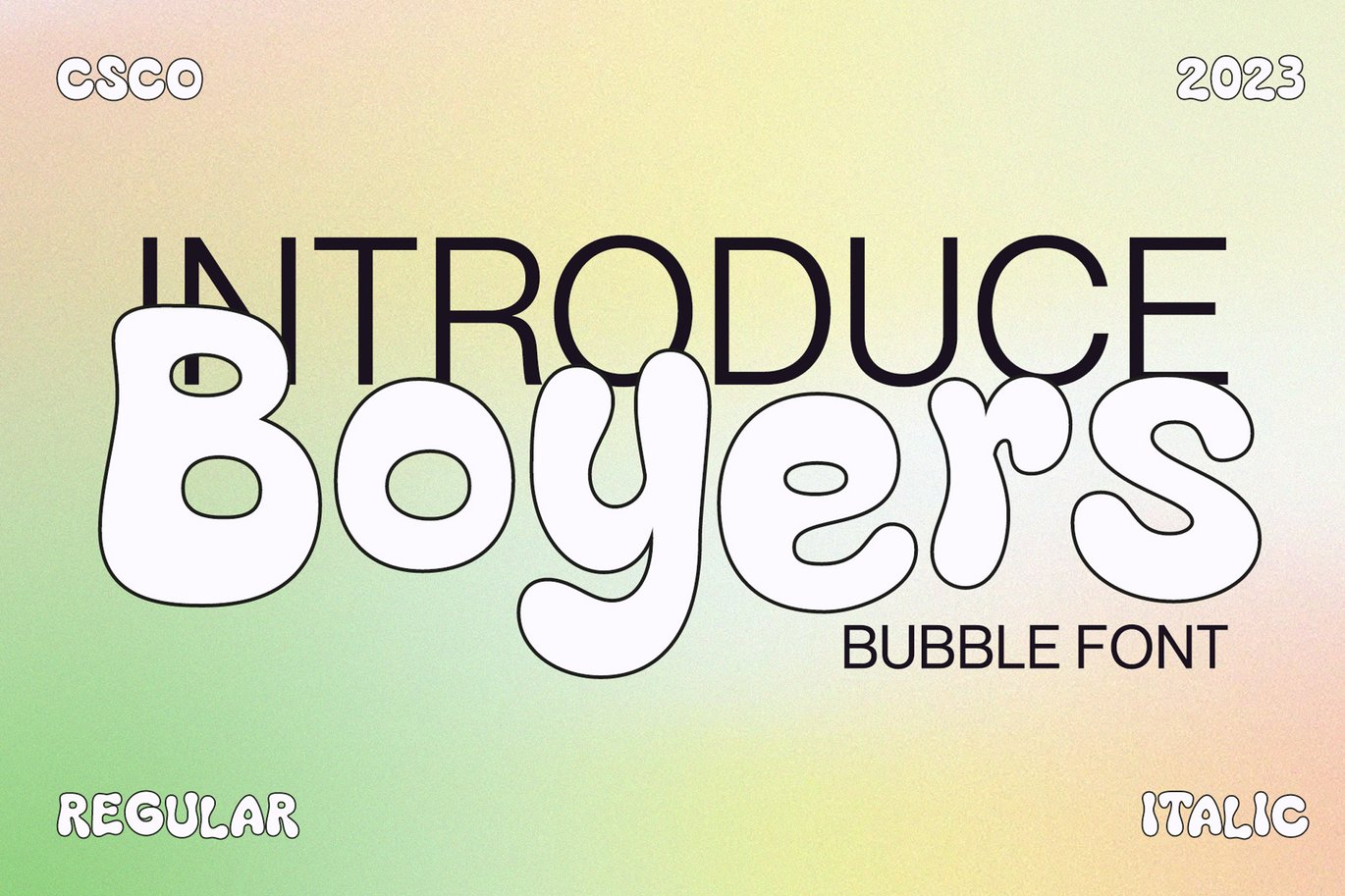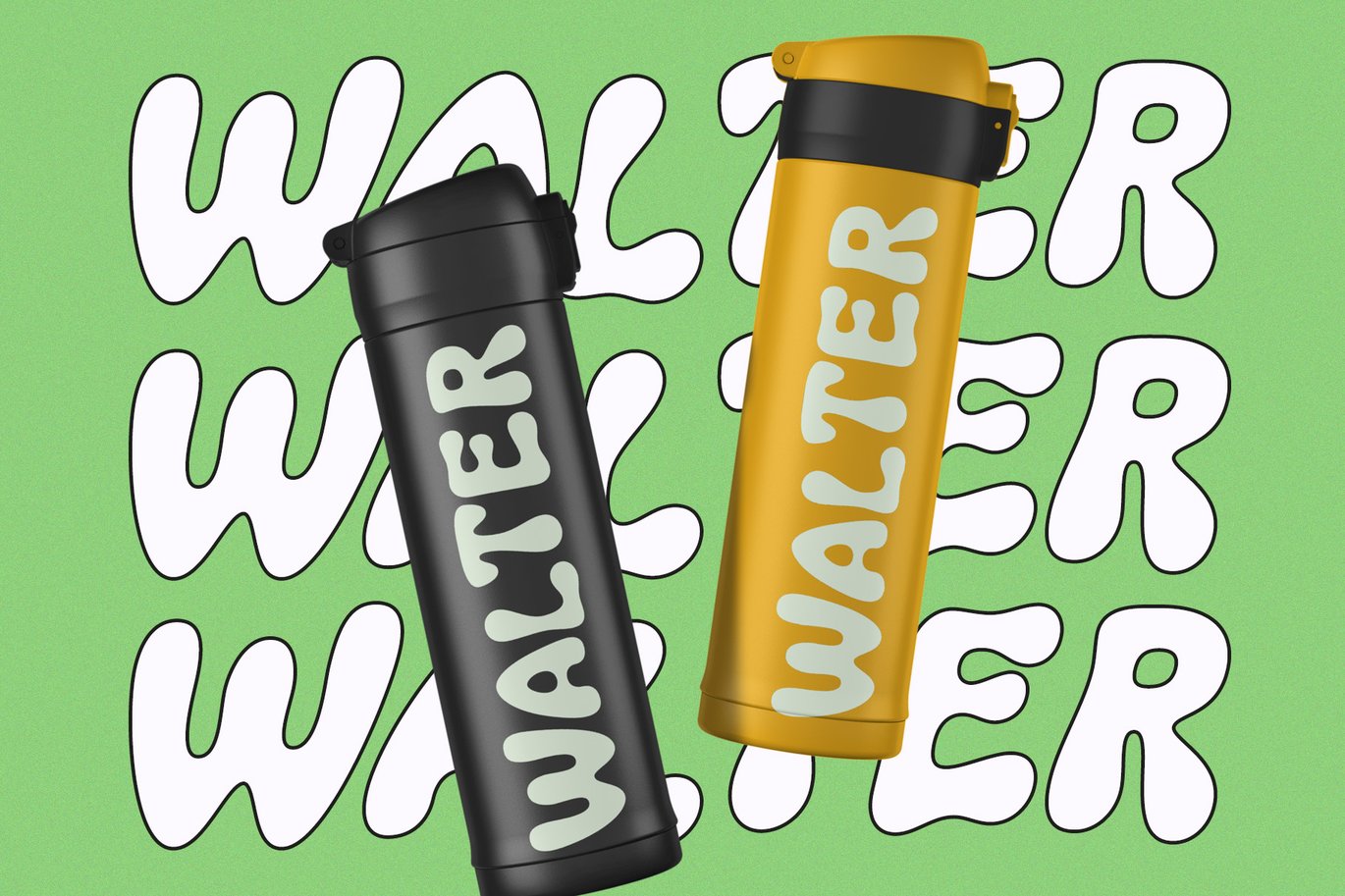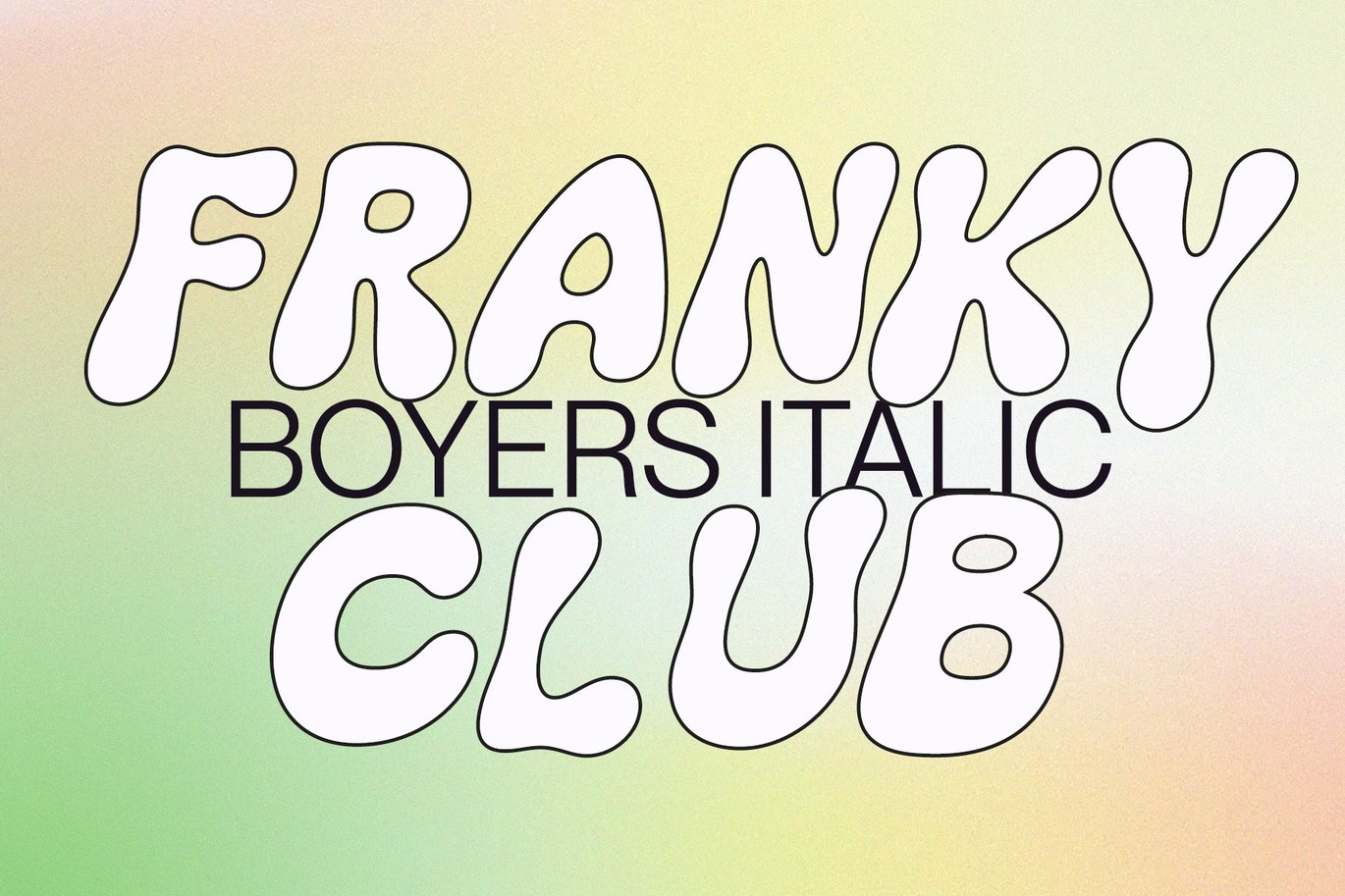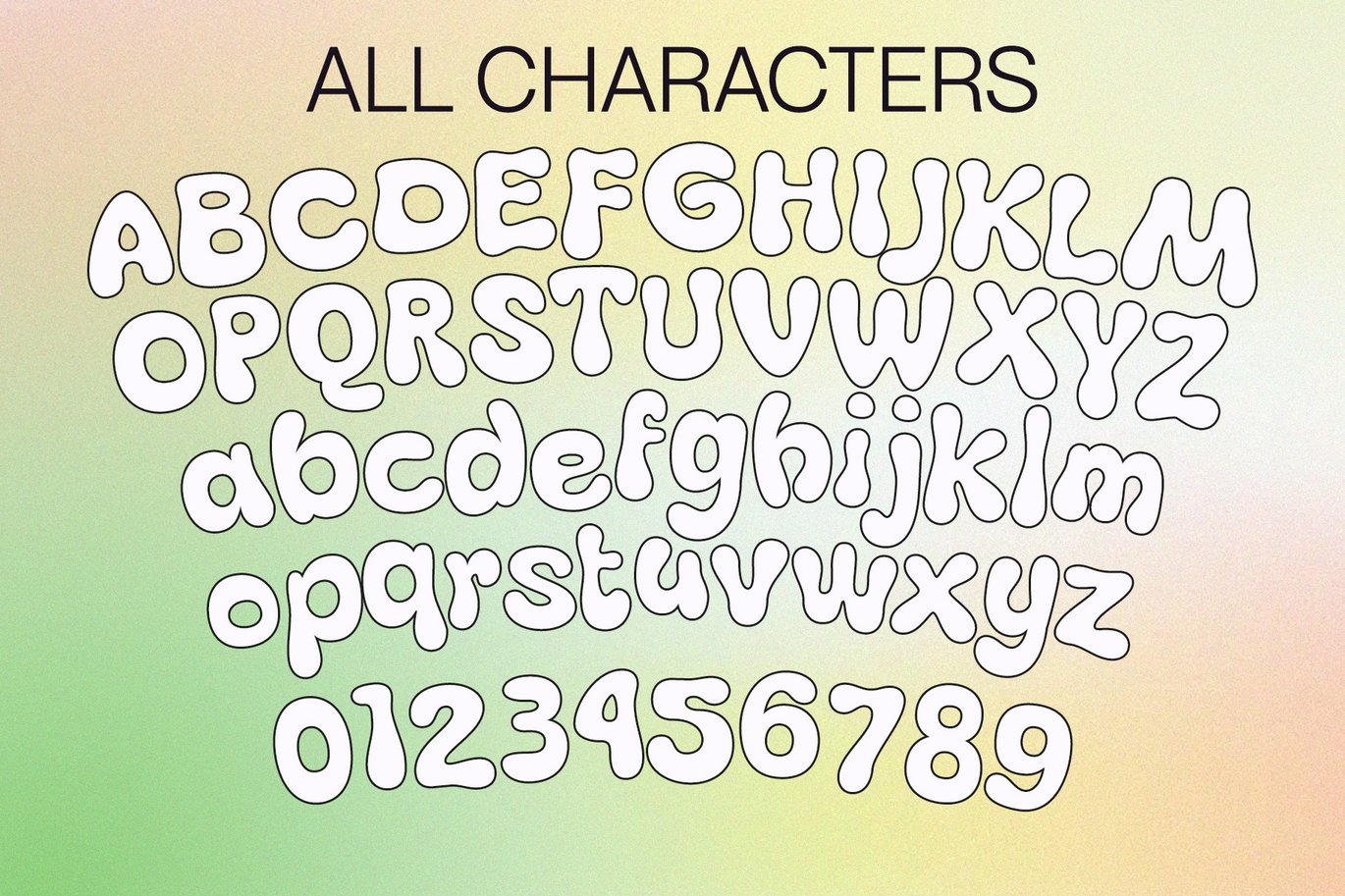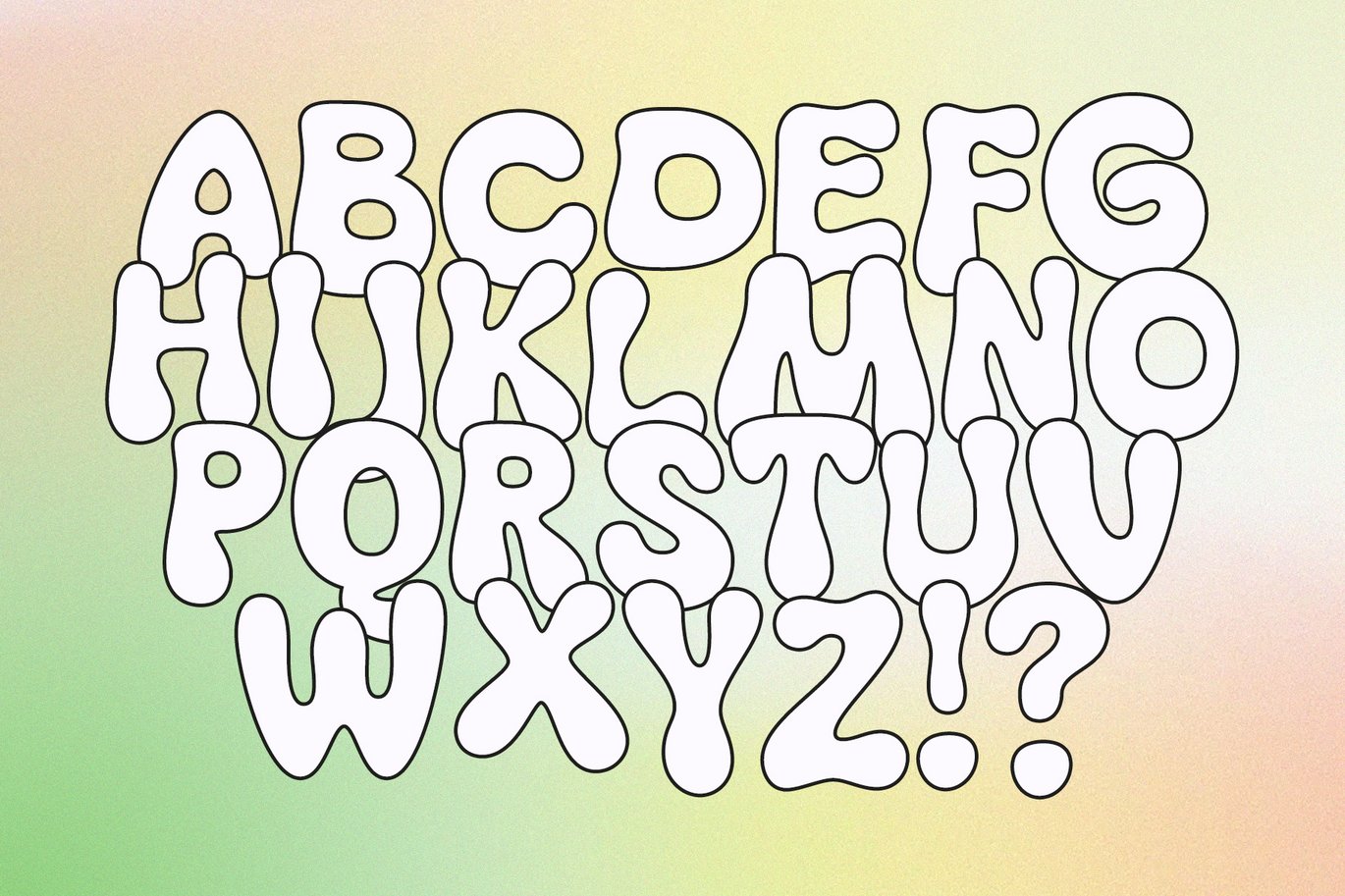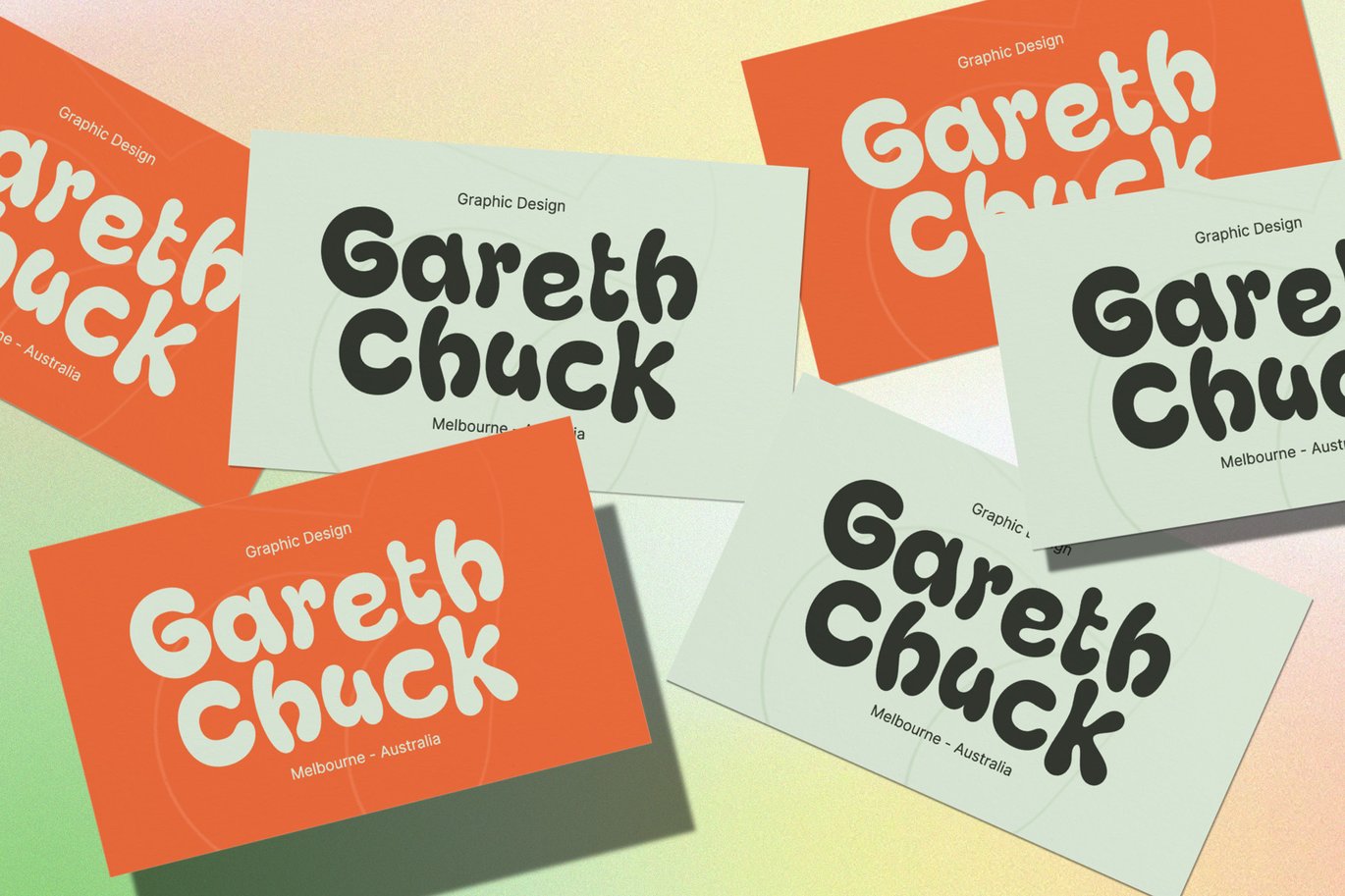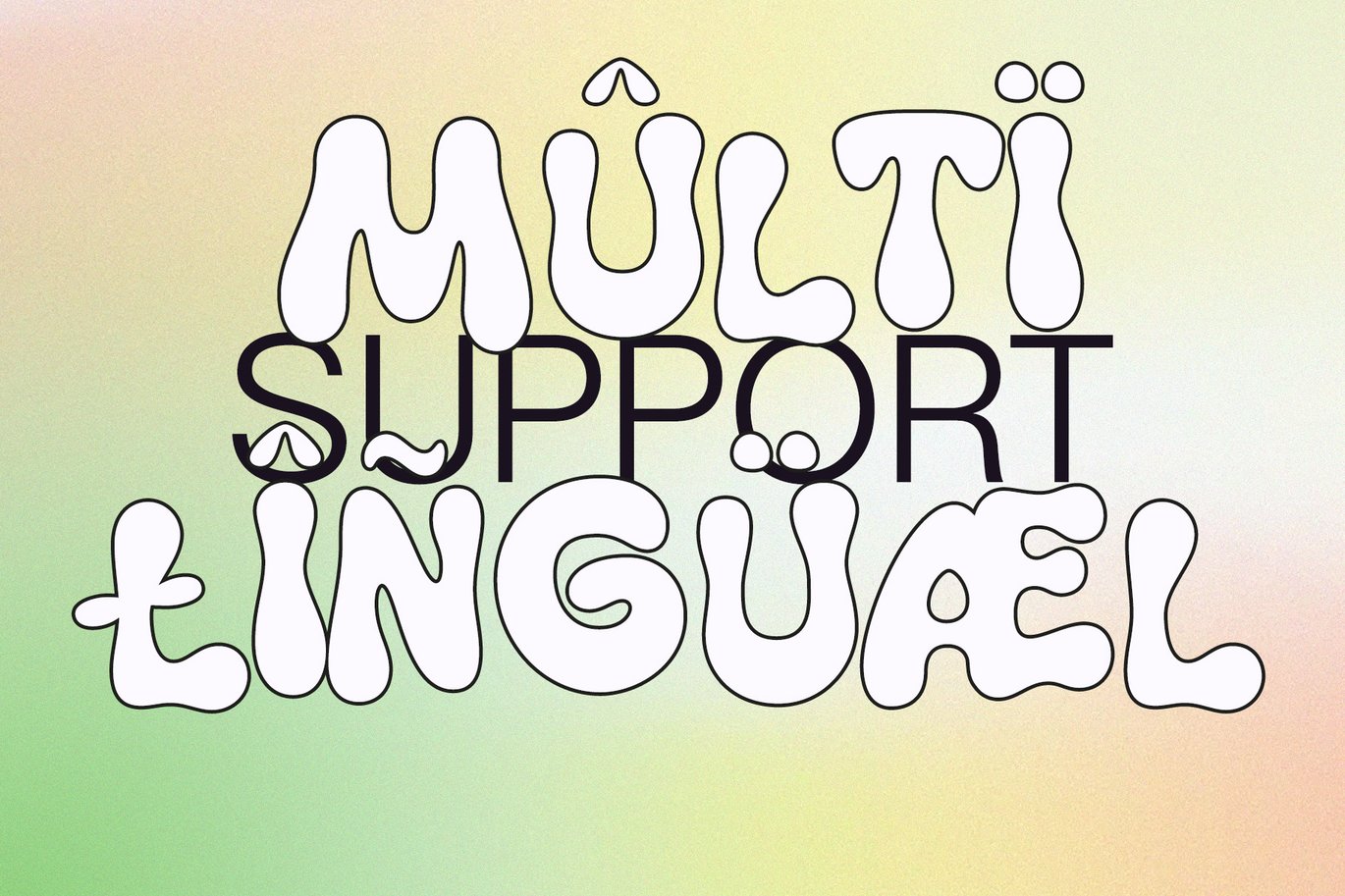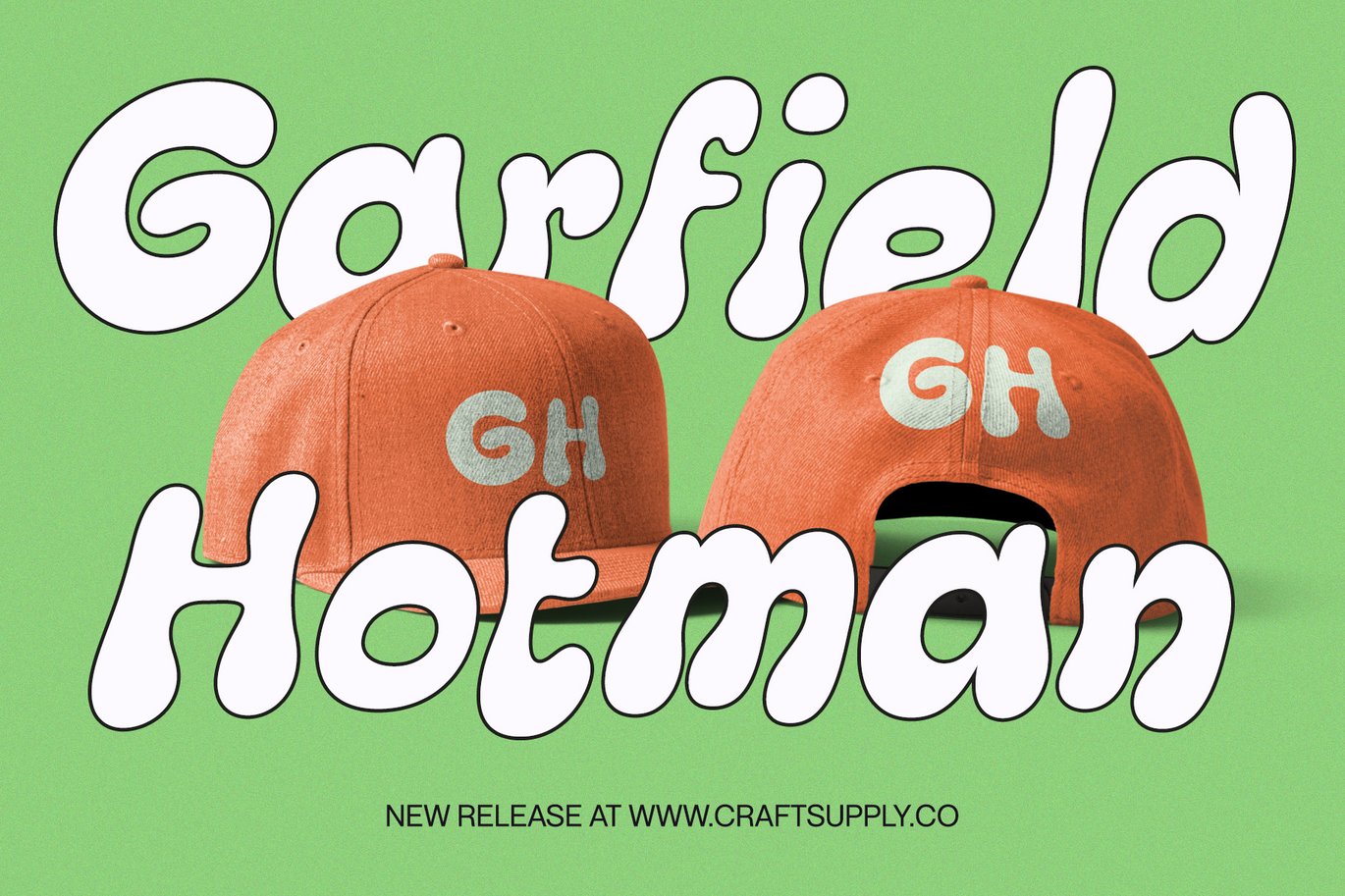
Boyers – Bubble Font
Boyers – The Adorable Bubble Font
Bubble-Inspired Cuteness
Boyers radiates the delightful embodiment of bubble-inspired cuteness, making it the perfect choice for all your display needs. Its playful charm captures the essence of balloons and whimsical awn, creating a font that’s both fun and endearing.
Imaginative Playfulness
Going beyond mere cuteness, Boyers showcases an imaginative playfulness that makes it a versatile choice for a wide range of creative projects. Whether you’re designing greeting cards, posters, or children’s book covers, Boyers adds a touch of whimsy to your creations.